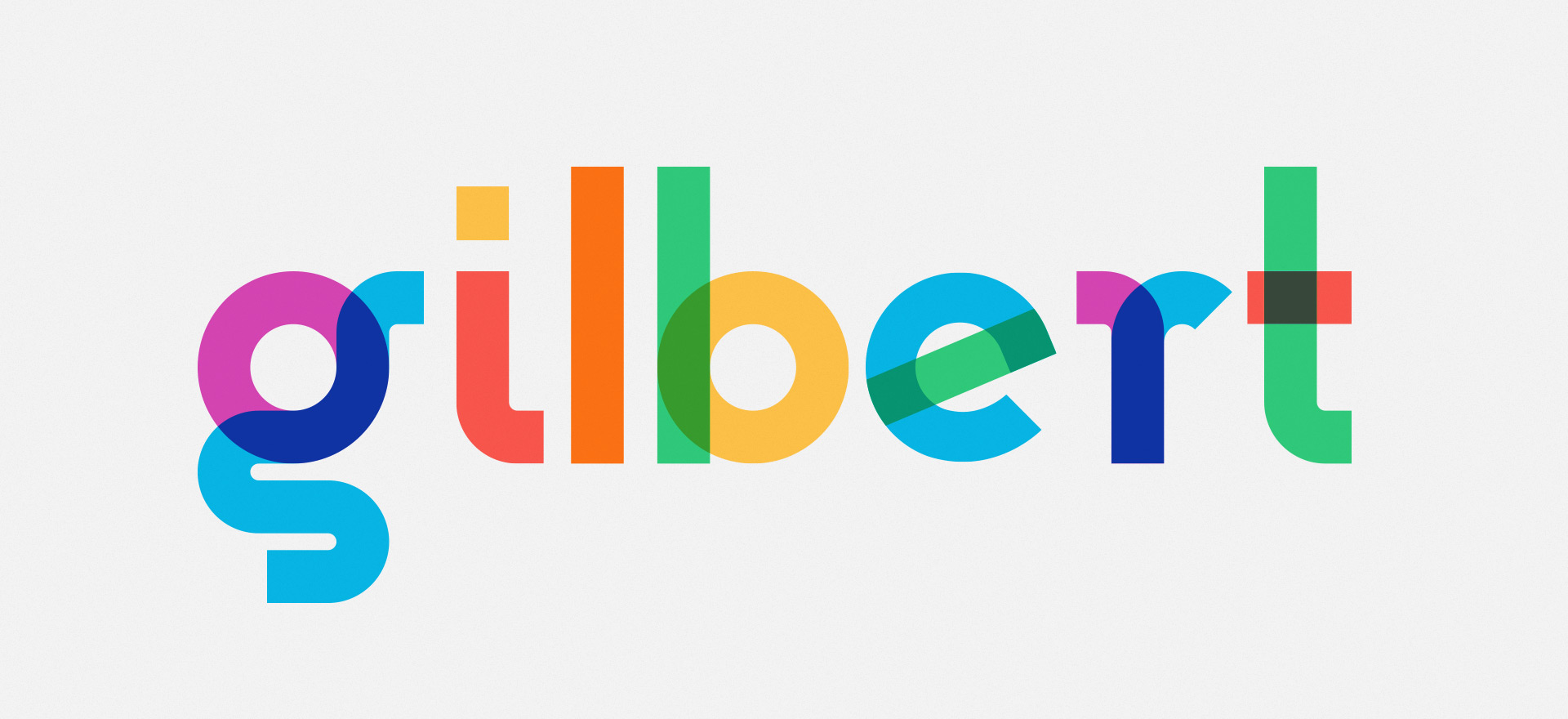
LetterBoard is another free color font from Fontslol type foundry.
An uppercase only font it contains the most common English characters and glyphs. Blockino works best in small doses as a headline quote or even an abstract pattern. MockoFun is a free text design maker online with hundreds of free fonts text symbols including colored text symbols and text styles to play with.
How to create online rainbow text. On top of our font generator we are a designer-centered website with over 64000 free fonts to choose from. It draws inspiration from changeable letter-board sign lettering and features tall condensed characters with beveled edges.
Free Blockino Font Blockino is a color font inspired by mid-century illustration and was designed to take full advantage of Opentypes new SVG font capabilities. Blockino is an uppercase only font and its lowercase acts as uppercase alternates. Its such a great font for birthday cards for kids.
Whereas fonts usually weigh tens to a few hundred kilobytes color vector fonts can reach hundreds of kilobytes to a couple megabytes depending on their visual complexity. Type or paste a sentence or paragraph text in the text area. Color fonts can impact any type of text since they may contain any type of.
1001 Free Fonts offers the best selection of Graffiti Fonts for Windows and Macintosh. Even if there are other birthday fonts out there this is one of my favorite fonts. This free font is in fact a layered font with three font versions that you can combine.
Gradient Stop Color. A color font file is generally larger than a regular font file and a lot more when the font embeds high-resolution bitmap characters. Its simple to make a text effect online with MockoFun.